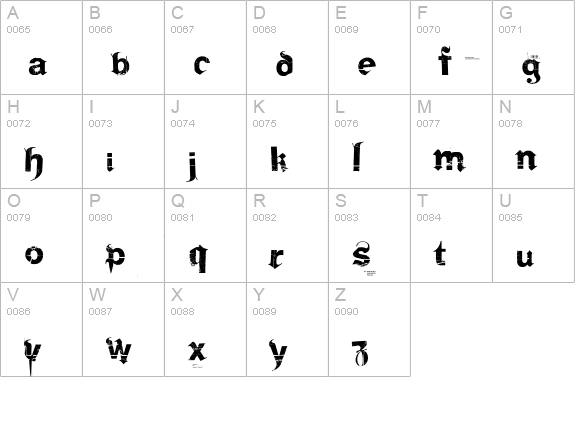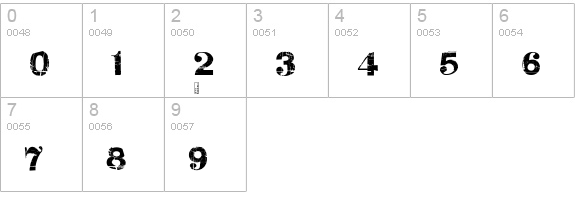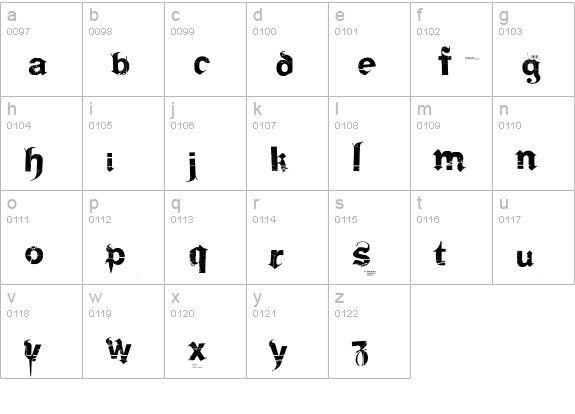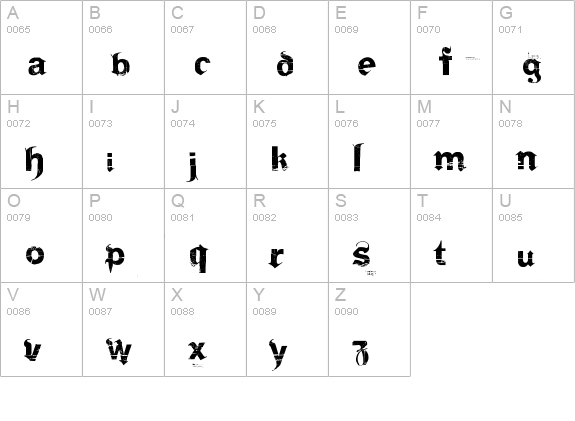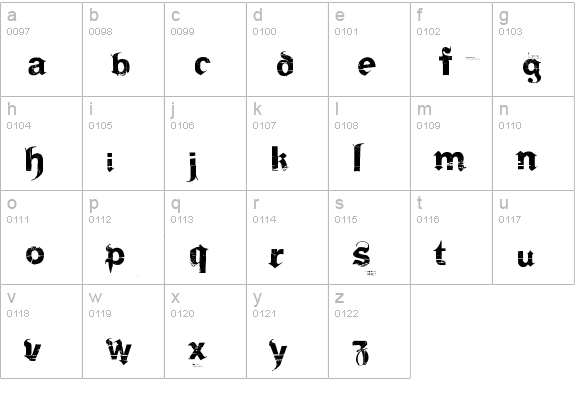
Frakturika Font Details
Frakturika is a stunning font that exudes elegance and classical charm with its intricate details and bold strokes. This unique typeface is inspired by traditional Fraktur calligraphy, featuring a distinctive old-world charm that adds a touch of sophistication to any design project. The sharp angles and decorative elements of Frakturika make it perfect for creating eye-catching headlines, invitations, and branding materials. What's even better is that Frakturika is available for free download at FontsMarket.com. Whether you're a designer looking to add a touch of vintage flair to your work or simply appreciate the beauty of calligraphy-inspired fonts, Frakturika is a must-have addition to your font collection. Embrace the timeless appeal of Frakturika and elevate your designs with this exquisite typeface today.